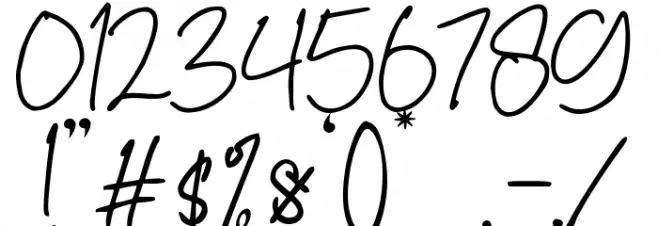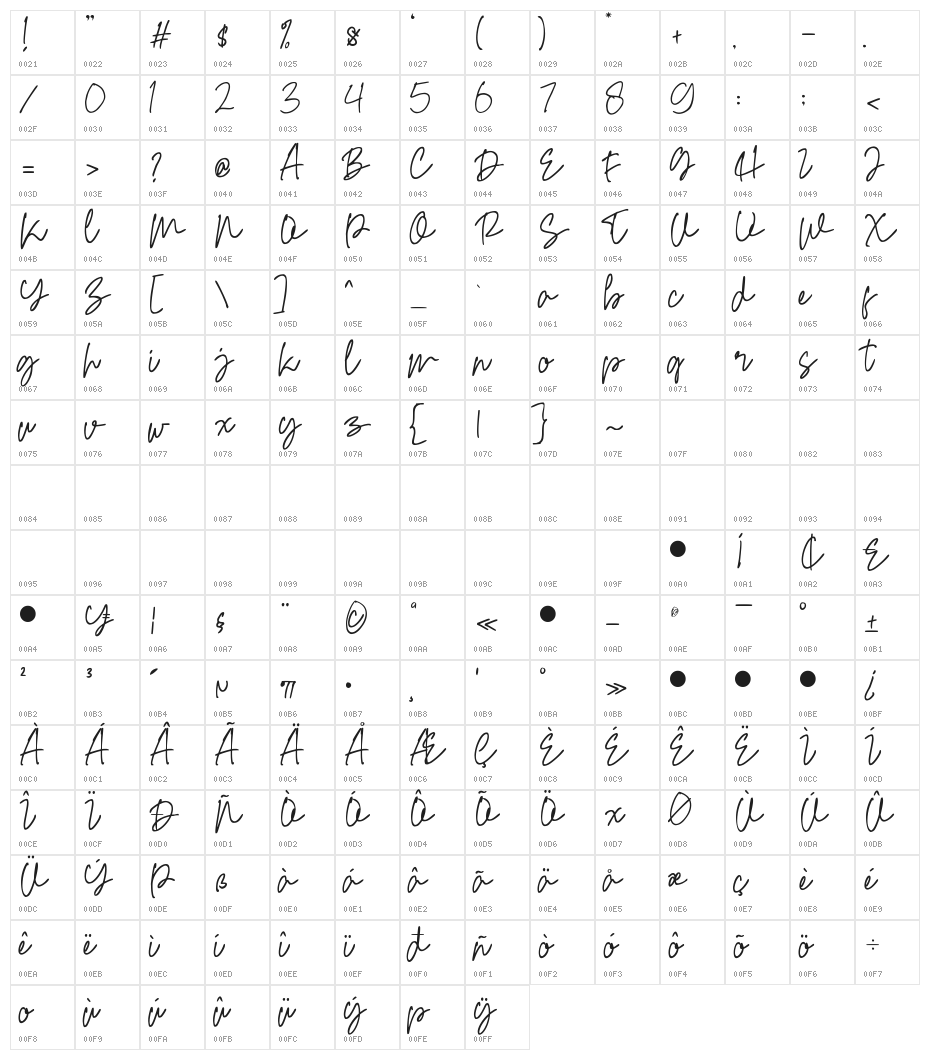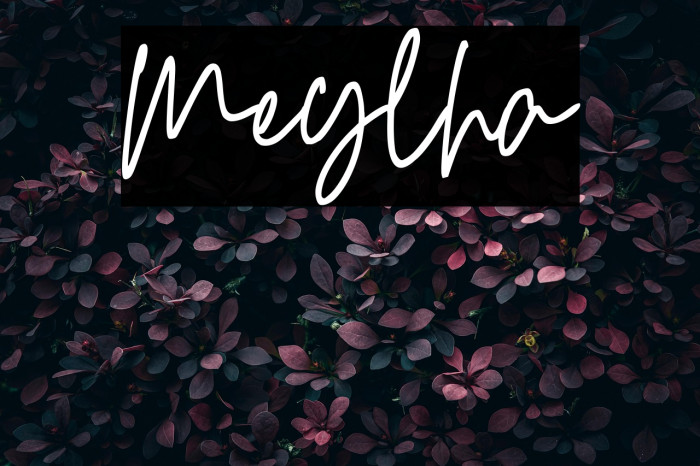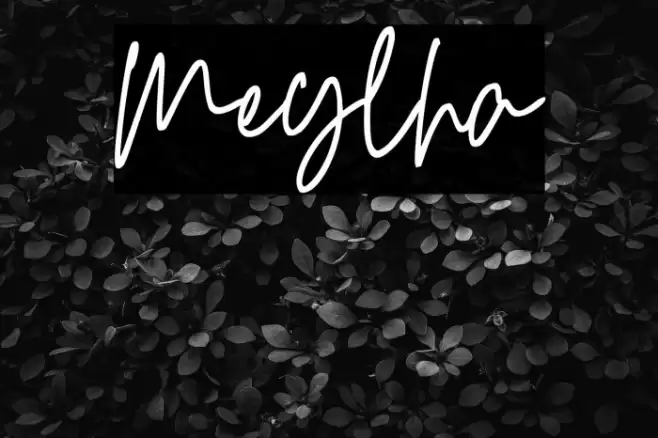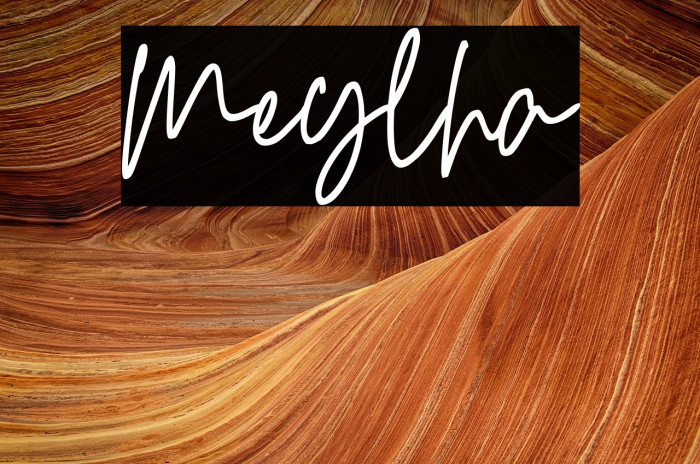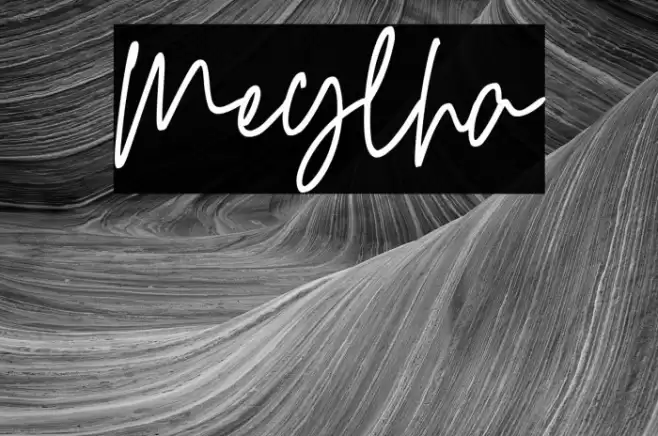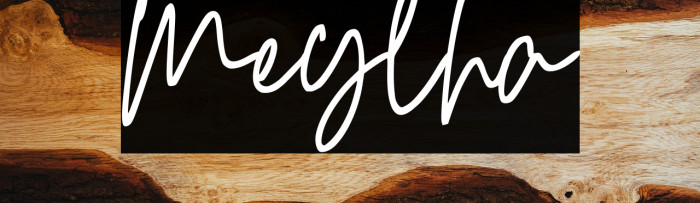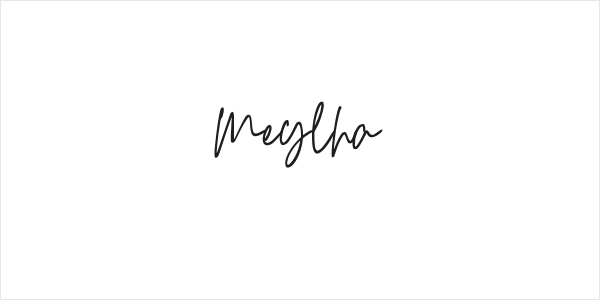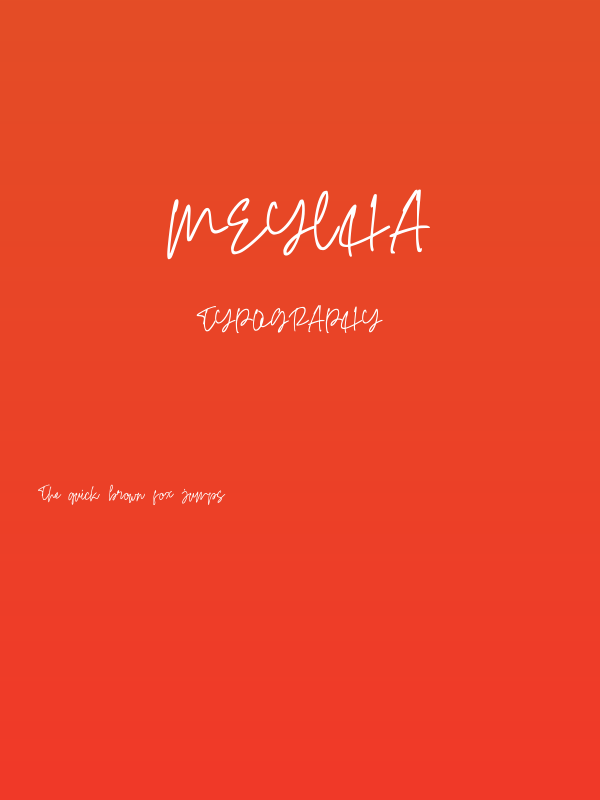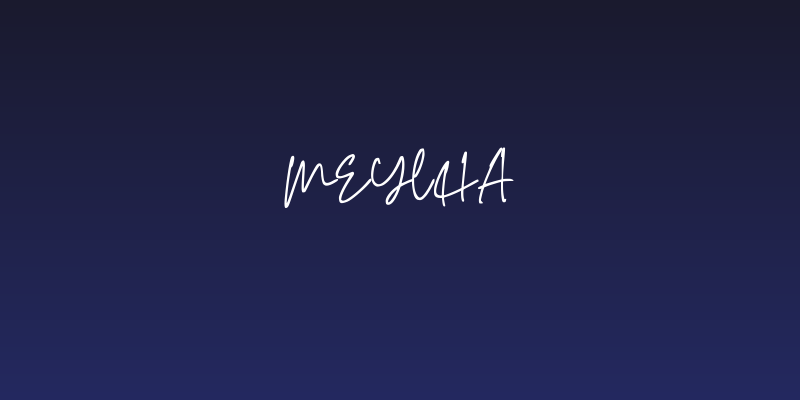
Meylha Font
Meylha Description
This font exudes a lively and dynamic handwritten style, characterized by its fluid and continuous strokes. The letters are connected in a cursive manner, giving it a personal and informal touch. The uppercase and lowercase letters maintain a consistent flow, with some playful loops and curves that add to its charm. The numerals and special characters are crafted with the same attention to detail, ensuring uniformity across the set. This font is perfect for projects that require a personal, human touch, such as invitations, greeting cards, or creative branding. Its unique style makes it stand out, while still being legible and versatile.